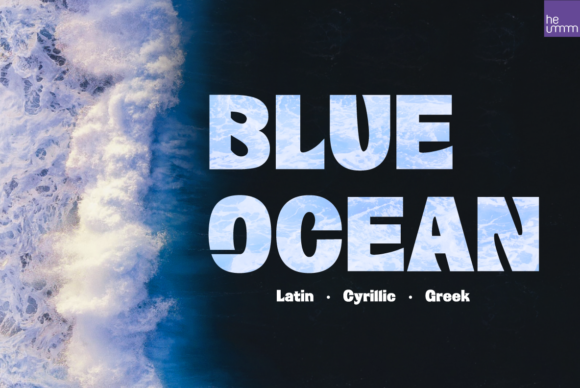
Discover Your Inner Artist with the Blue Ocean Font
Remember that moment when you stumbled upon the perfect color palette for your latest project, and suddenly, everything came together? The excitement, the creativity, the thrill of bringing your vision to life? For designers, those moments are what make all the hard work worth it. And, we’re about to introduce you to a tool that will make those moments even more magical – the Blue Ocean Font.
This cool and retro styled display font is more than just a pretty face; it’s a versatile tool that can elevate your designs from ordinary to extraordinary. Whether you’re crafting letterheads, titles, or stationery, Blue Ocean Font’s original look is sure to make a statement. As a valuable addition to any designer’s toolkit, it’s an absolute must-have for anyone looking to take their craft to the next level.
Blue Ocean Font Key Features
- Unique Character Set: Blue Ocean Font features a unique set of characters that are designed to be highly legible and visually appealing, making it ideal for use in digital media.
- Unique Design Elements: The font features a distinctive wave-like design element that gives it a unique and modern appearance, making it stand out from other sans-serif fonts.
- Scalability: Blue Ocean Font is highly scalable, allowing it to be used effectively in a wide range of contexts, from small text to large headlines.
Blue Ocean Font Review
As a designer, I was excited to dive into the Blue Ocean Font. Here’s my honest review:
- Unique and modern aesthetic: Blue Ocean Font has a fresh, ocean-inspired design that’s perfect for creating a calming atmosphere.
- Highly legible: The font is clear and easy to read, making it ideal for body text and headings.
- Wide character set: The font includes a wide range of characters, including Cyrillic and Greek alphabets, making it a great option for multilingual designs.
- Limited font weights: Blue Ocean Font only comes in a few font weights, which might limit its versatility for certain design projects.
- No italic or bold-italic styles: The font lacks italic and bold-italic styles, which can make it difficult to create emphasis or create a sense of hierarchy.
While Blue Ocean Font has its limitations, I still think it’s a great addition to any designer’s toolkit. Its unique aesthetic and high legibility make it perfect for creating a calm and modern atmosphere. However, designers may want to consider using it in conjunction with other fonts to add more depth and versatility to their designs.
For a cohesive look, pair Blue Ocean Font with other calming colors and minimalist designs.
For a professional look, use Blue Ocean Font in conjunction with high-contrast colors and bold designs.
For a polished look, pair Blue Ocean Font with other clean fonts and simple layouts.
Tips for Getting the Most Out of Blue Ocean Font
Use Blue Ocean Font in titles and headings to draw attention and create visual interest.
Pair Blue Ocean Font with other calming colors and minimalist designs to create a soothing atmosphere.
Experiment with different font sizes and styles to add depth and hierarchy to your designs.
Blue Ocean Font is ideal for:
Brand identities and logos
Marketing materials and brochures
Website headers and footers
Presentations and reports
Alternatives to Blue Ocean Font
Lato is a modern sans-serif font that is highly legible and versatile. It is suitable for a wide range of designs, including corporate materials, websites, and magazines. Lato is more geometric in shape compared to Blue Ocean Font, making it a better choice for modern and minimalist designs.
Comparison: Lato Font has a more neutral and clean appearance compared to Blue Ocean Font, which is more elegant and sophisticated.
Open Sans is a highly readable sans-serif font that is widely used in digital design. It is suitable for body text, headings, and titles. Open Sans is more rounded and friendly compared to Blue Ocean Font, making it a better choice for informal and approachable designs.